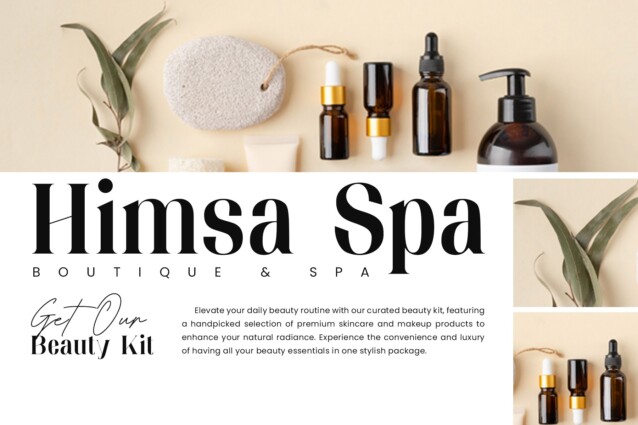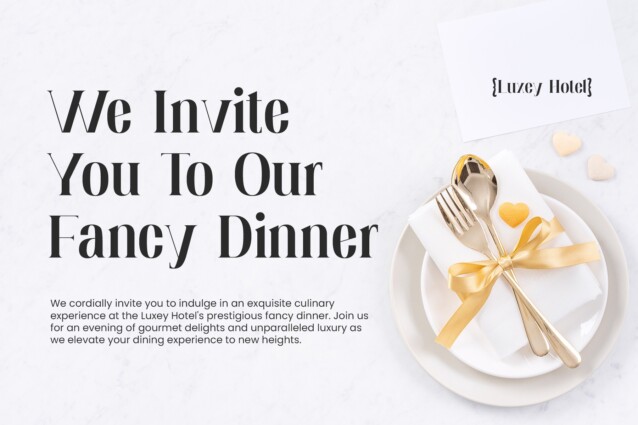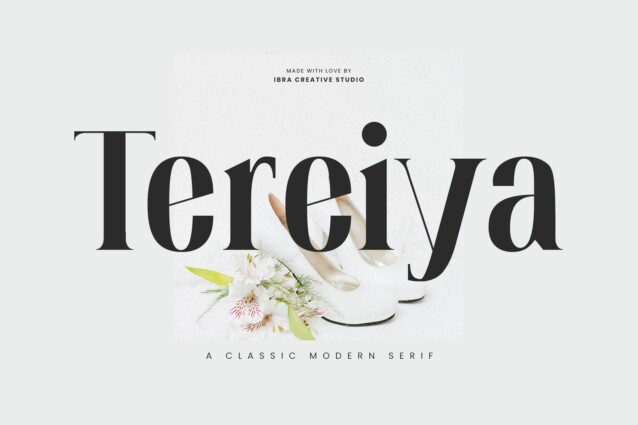
Tereiya Font
Tereiya Font is a contemporary look serif typeface with sharp and dynamic strokes, strong contrasts that are subtle. Its gracefully sculpted letterforms boast a harmonious balance of thick and thin strokes, exuding a sense of sophistication and refined aesthetics. Tereiya’s serifs are striking yet understated, delivering a distinguished presence that elevates any typographic composition. With its meticulously crafted details and graceful curves, Tereiya remains a paragon of typographic artistry, ideal for conveying a sense of timelessness and enduring style in both print and digital applications.